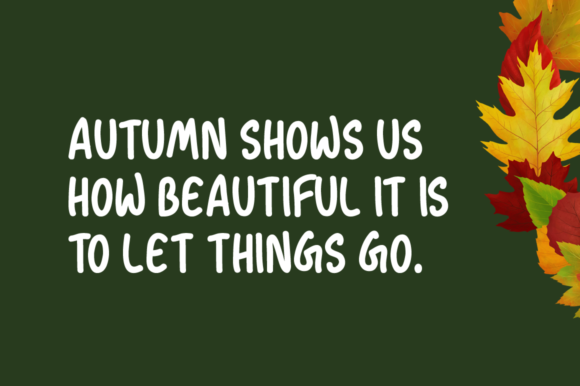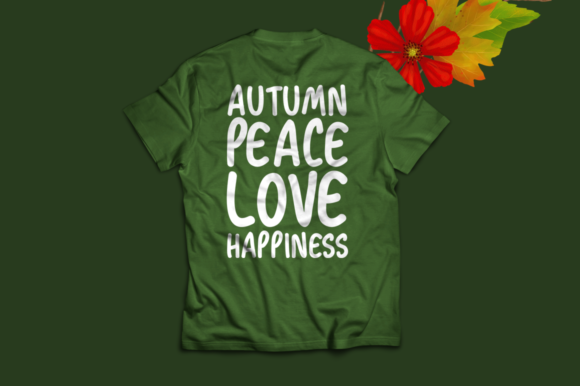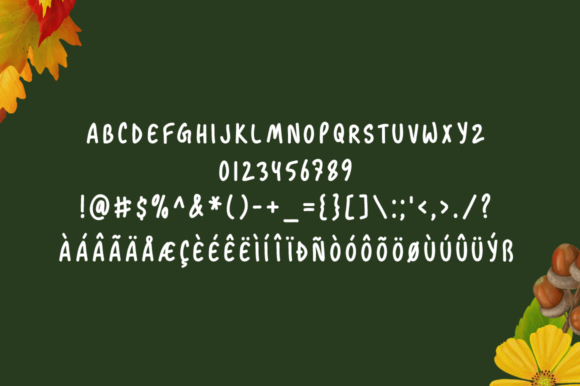
Welcome the Cozy Charm of Autumn with the Perfect Font: Autumn Season Font
As the leaves change colors and the air grows crisper, designers and crafters alike eagerly anticipate the autumn season. It’s a time of cozy warmth, rich textures, and vibrant colors. What better way to capture the essence of fall than with a font that embodies its spirit? Introducing the Autumn Season Font, a clean and friendly display font designed to make your autumn-themed projects shine.
The Perfect Font for Autumn Projects
Autumn Season Font is more than just a collection of letters; it’s a design tool that brings the warmth and charm of the season to your creative projects. Whether you’re working on invitations, posters, crafts, or digital content, this font is the perfect choice. Its clean lines and friendly demeanor make it versatile enough for a wide range of applications, from playful and whimsical to elegant and sophisticated.
Key Features of Autumn Season Font
- Clean and Friendly Design: The Autumn Season Font boasts a clean design that ensures readability and a friendly vibe that adds a touch of warmth to your projects.
- Perfect for Display: As a display font, it’s optimized for headlines and titles, making it ideal for grabbing attention and setting the tone for your autumn-themed content.
- Celebrates All Things Fall: From the changing leaves to cozy sweaters and warm beverages, this font is designed to evoke the feeling of autumn in every letter.
- Versatile: Whether you’re creating digital content, printing invitations, or crafting handmade cards, the Autumn Season Font adapts seamlessly to various mediums and styles.
Transform Your Projects into Art
With the Autumn Season Font, your next autumn project doesn’t just have to be good; it can be great. Imagine transforming a simple invitation into a stunning piece of art that captures the essence of the season. Picture a poster that not only announces an event but also transports viewers to a crisp autumn day filled with the scent of pumpkin spice and the sound of leaves crunching underfoot. This font makes it possible.
Ideas for Using Autumn Season Font
- Autumn Event Invitations: Create eye-catching invites for harvest festivals, Halloween parties, or Thanksgiving gatherings.
- Fall-themed Crafts: Add a personal touch to your DIY projects, such as handmade cards, scrapbooking, or knitted items.
- Digital Content: Elevate your blog posts, social media graphics, or email newsletters with a font that resonates with the season.
- Educational Materials: Make learning about autumn fun and engaging with worksheets, presentations, or activity guides that use the Autumn Season Font.
Why Choose Autumn Season Font?
In a world where fonts are plentiful, the Autumn Season Font stands out for its unique blend of cleanliness, friendliness, and seasonal charm. It’s not just a font; it’s a way to connect with your audience on a deeper level by speaking to the senses and emotions associated with autumn. Moreover, its ease of use and versatility make it a practical choice for designers and crafters of all skill levels.
As autumn approaches, bring the season’s warmth and charm into your designs with the Autumn Season Font. Whether you’re a professional designer or a crafting enthusiast, this font offers a simple yet powerful way to elevate your projects and make them truly special. So why wait? Embrace the cozy charm of autumn in your creative work and let the Autumn Season Font be your guide to making memorable and engaging content.